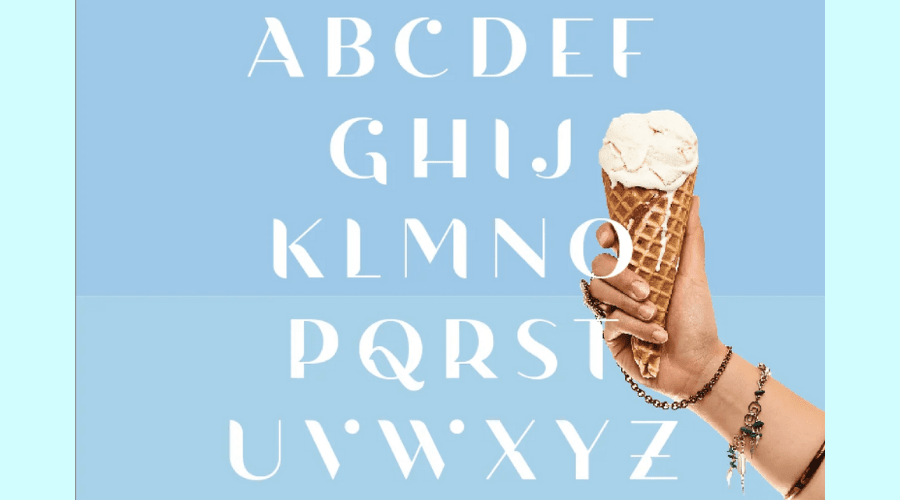
Gelato Soft Typeface
Gelato Soft Typeface is a one-of-a-kind display typeface. Pedro Azedo developed and released the Font on May 25, 2019.
Gelato Soft Typeface is a yet another font that may be used for various purposes, including nameplates, party invites, and children’s artwork, all of which contribute to a welcoming and memorable ambience. Gelato Soft Typeface Font fonts that are equipped starting from uppercase, lowercase, Numeric, and some Special character and alternates.
Gelato Soft Typeface is very suitable for logos, branding, invitations, stationery, wedding designs, invitations, logos, business cards, covers, shirts, social media posts, and more. It will also use it to create a fantastic image, text with various types of colours and text. Gelato Soft is an excellent typeface for modern and nostalgic logos, badges, titling, posters, and signboards, among other things.